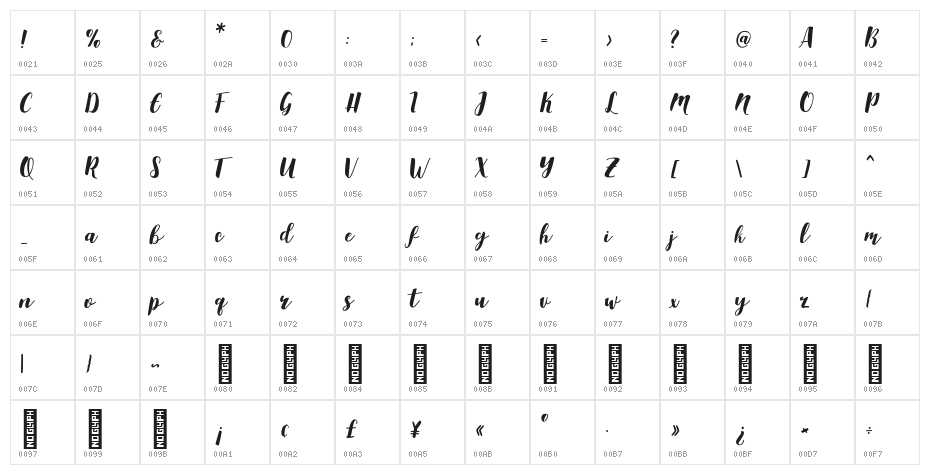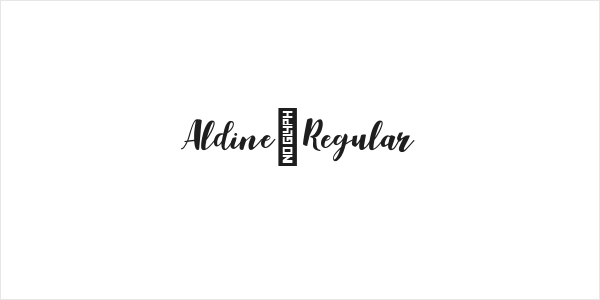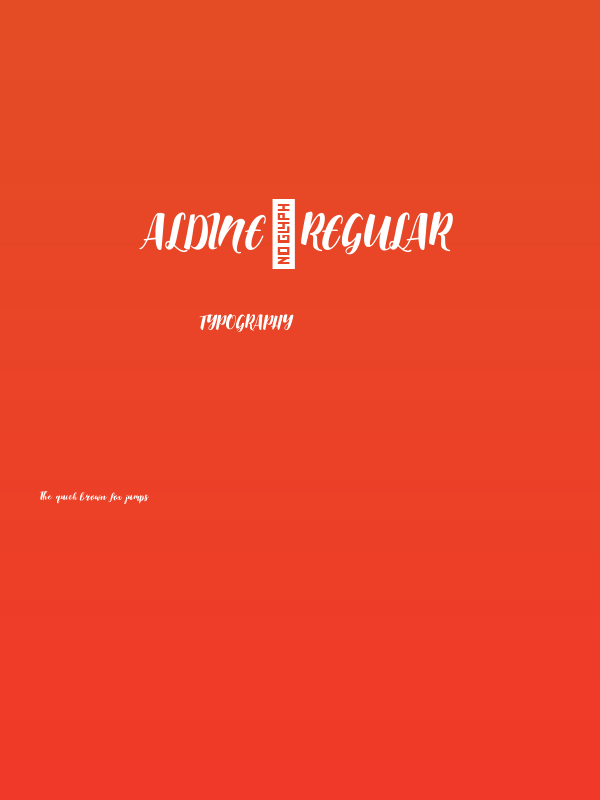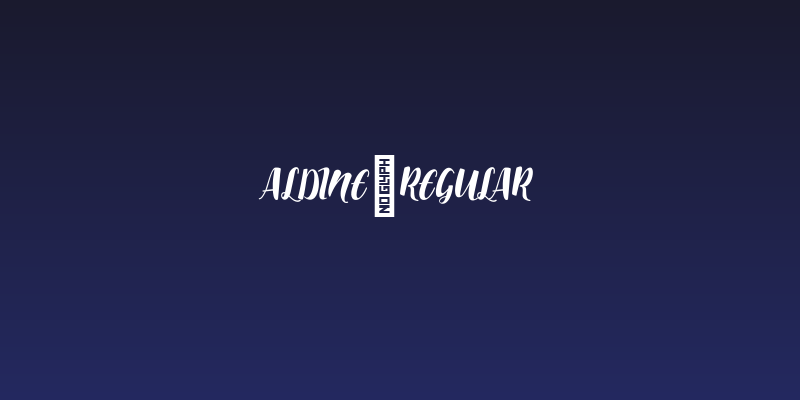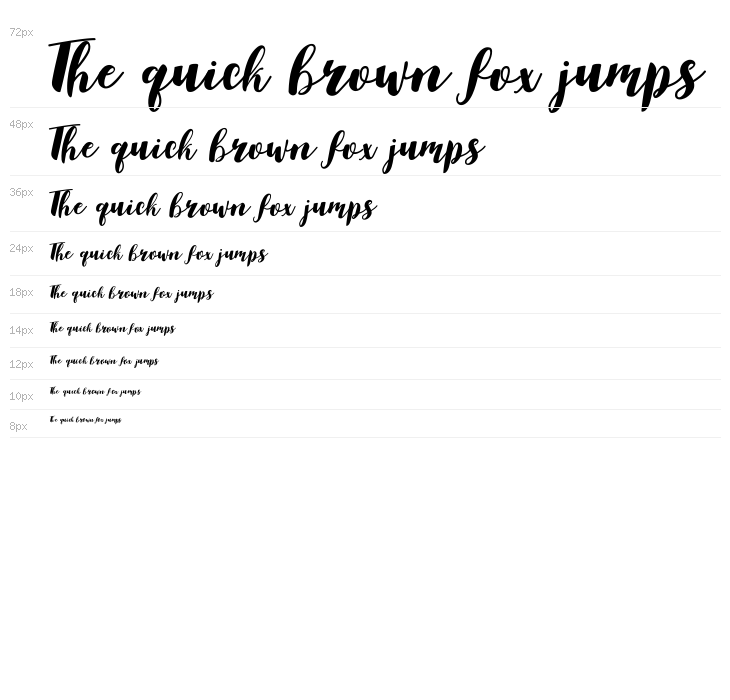
Aldine-Regular Font
Aldine-Regular Description
This font features a dynamic and elegant script style with a flowing, cursive appearance. The uppercase letters are bold and slightly slanted, giving a sense of movement and sophistication. The lowercase letters maintain a consistent style, with smooth curves and connected strokes that enhance readability while retaining a decorative flair. The font lacks numerical glyphs and some special characters, which may limit its use in certain contexts. Its overall design is well-suited for projects that require a touch of elegance and creativity.
Overall StyleElegant, Decorative
Use CaseLogos, Invitations, Decorative text
Proposed ProjectsIdeal for wedding invitations, greeting cards, branding, and logo design where a touch of elegance is desired.